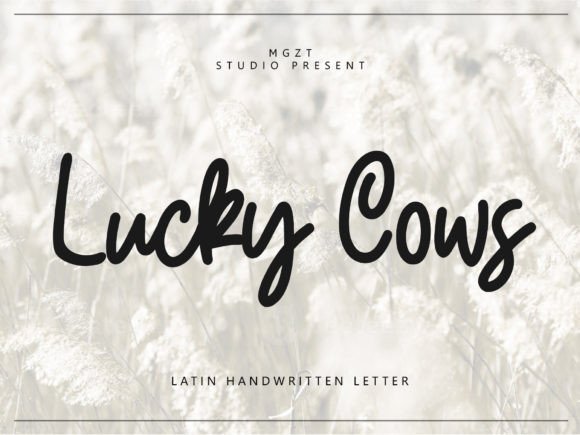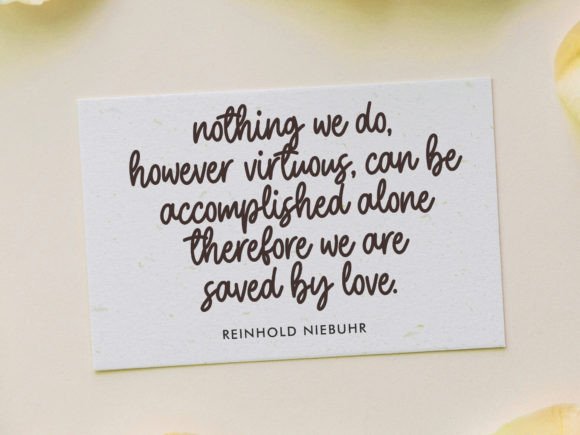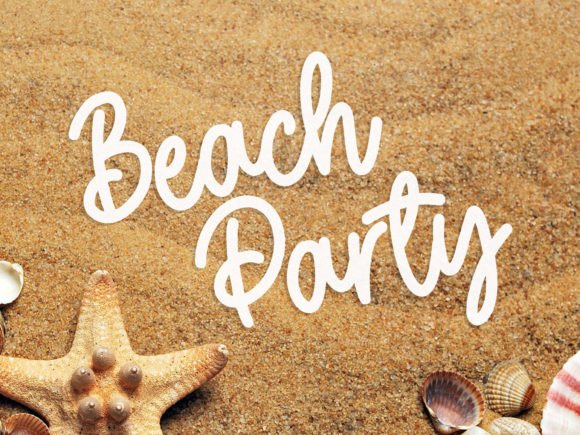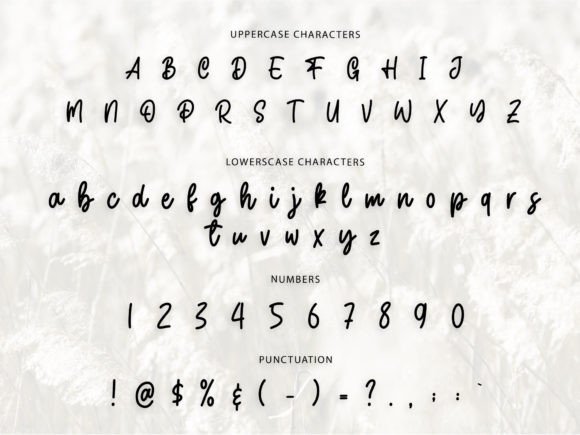
Introduction to Lucky Cows Font
Lucky Cows captures the essence of whimsical cartoon style, making it perfect for children’s books, playful branding, and any design that needs a fun and friendly vibe.
Each letter is crafted with a focus on simplicity and sweetness, ensuring readability while maintaining its delightful appearance The compact size and endearing design of Lucky Cows make it an excellent choice for adding a touch of joy and charm to your text, whether it’s for a lighthearted logo, a fun poster, or any creative endeavor that seeks to bring smiles.
Key Features of Lucky Cows Font
Why Choose Lucky Cows Font?